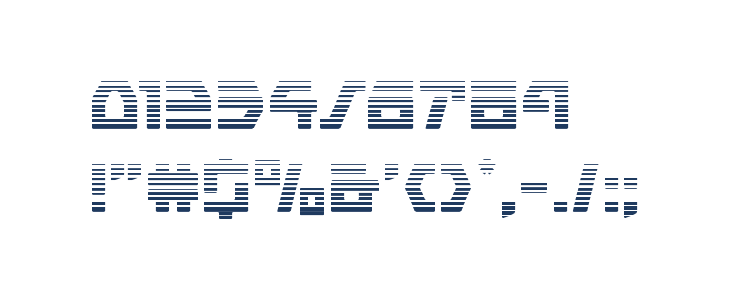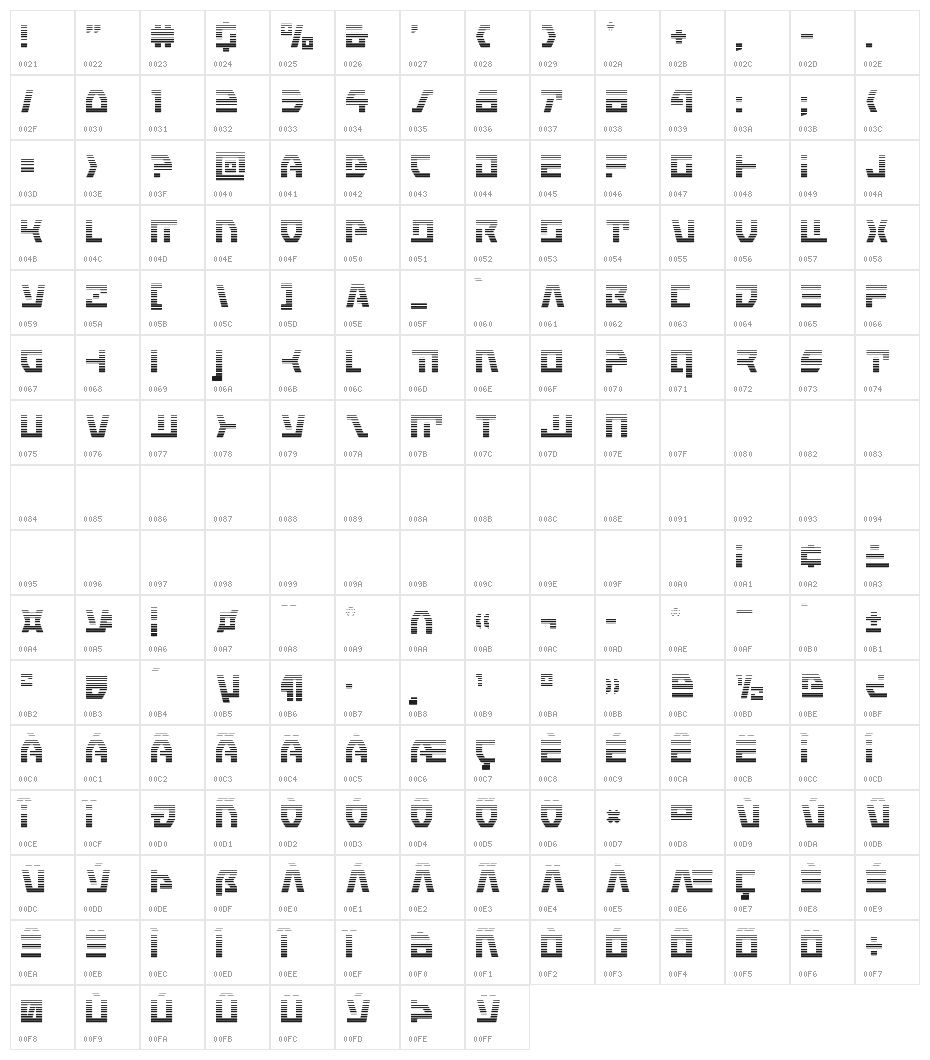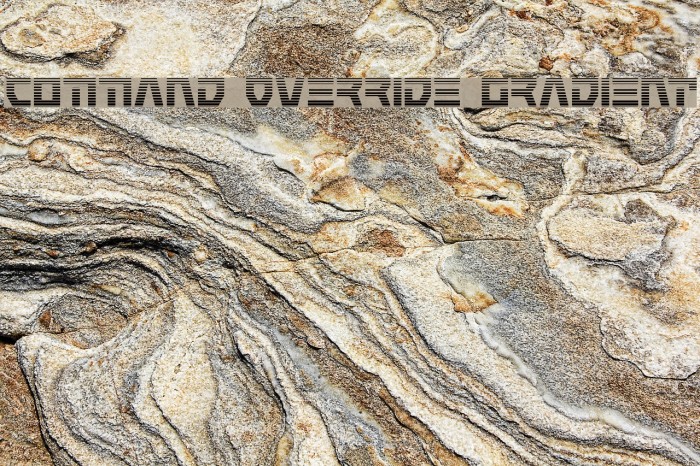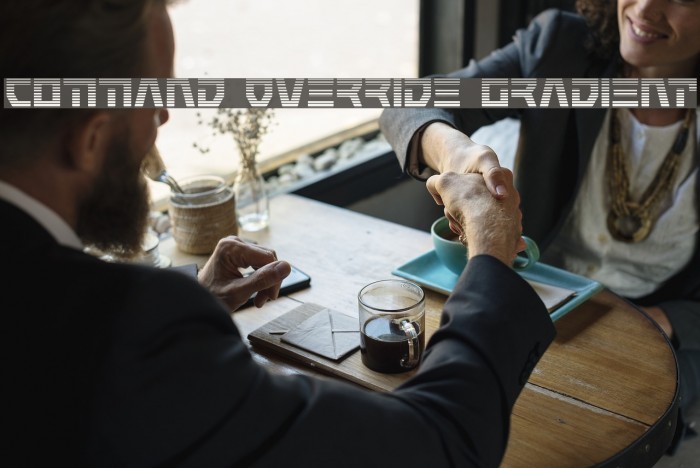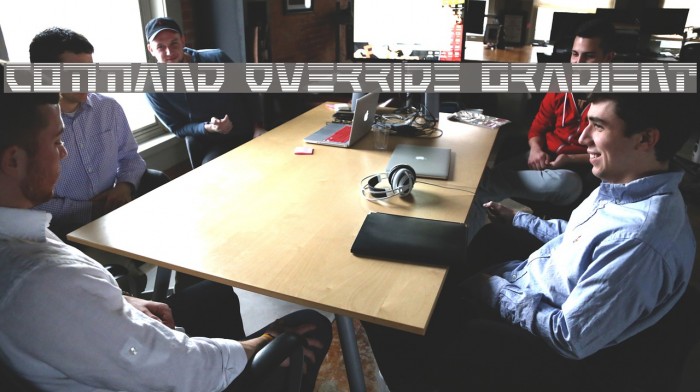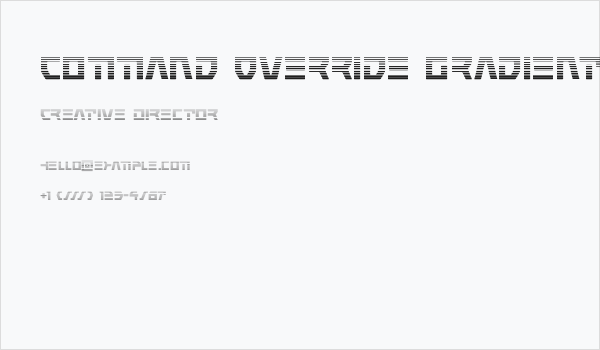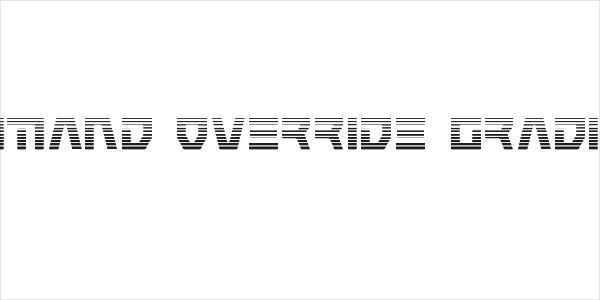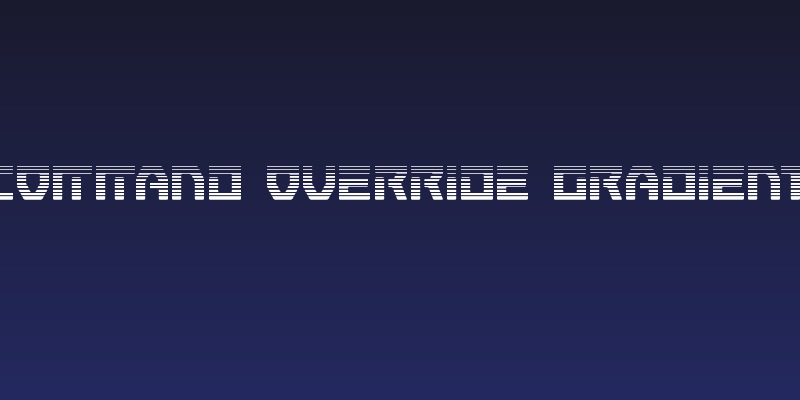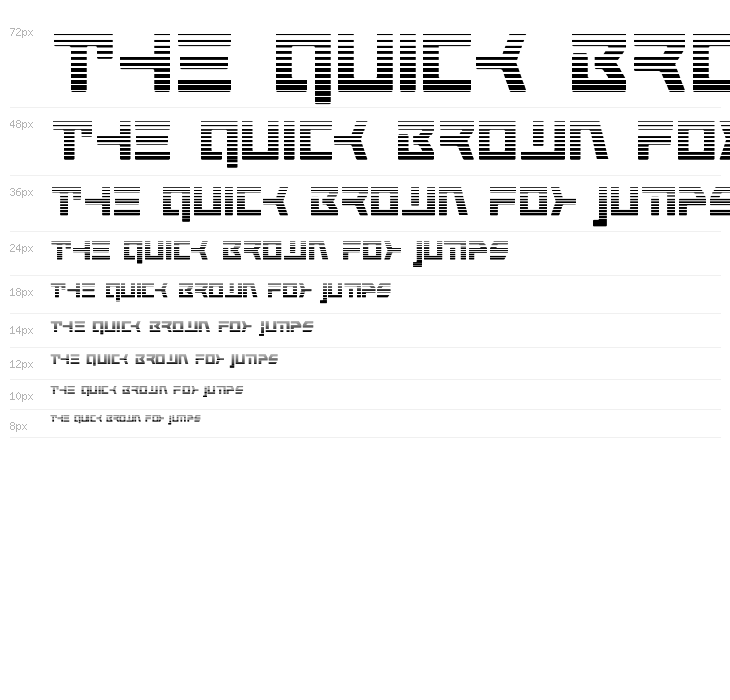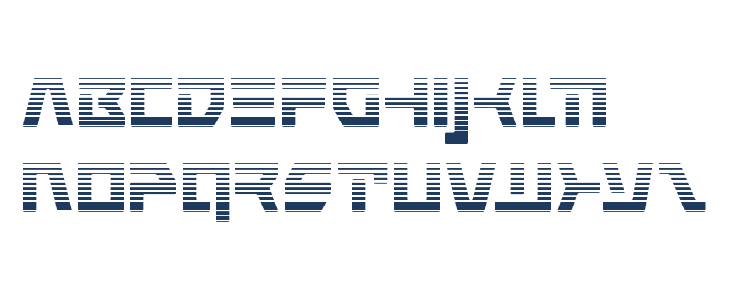
Command Override Gradient Font
Command Override Gradient Description
This font features a futuristic and digital aesthetic, characterized by its horizontal line patterns that create a sense of movement and depth. The characters are constructed with a series of parallel lines, giving them a unique, layered appearance. This design choice results in a high-tech, mechanical feel, reminiscent of digital displays or electronic interfaces. The uppercase and lowercase letters maintain a consistent style, ensuring readability while still offering a distinct visual impact. The numbers and special characters follow the same design principles, making the font versatile for various applications.